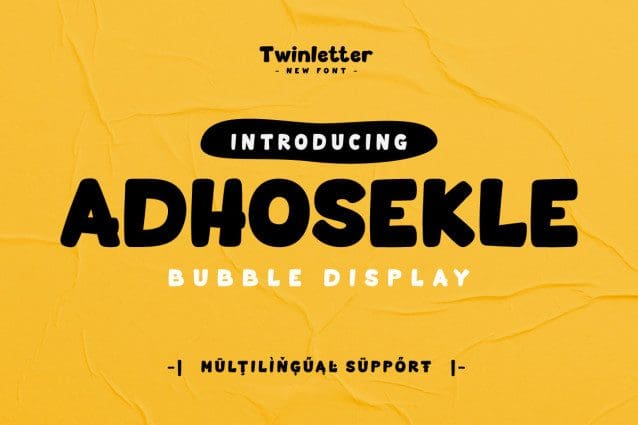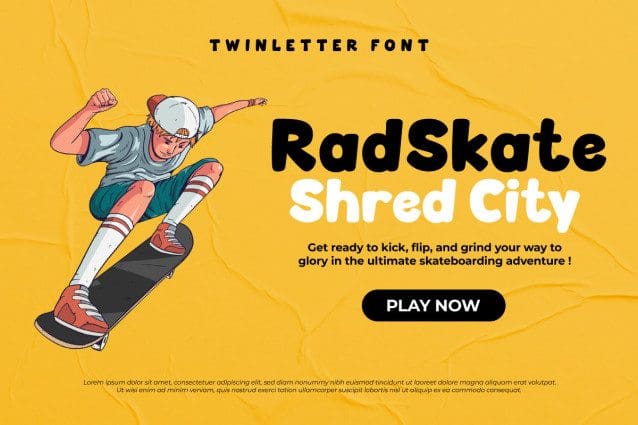
Adhosekle Playful Font
Adhosekle Playful Font, is a chunky, comic, and cartoon display font. With its neat and joyful personality, this font will enhance any project you wish to create!